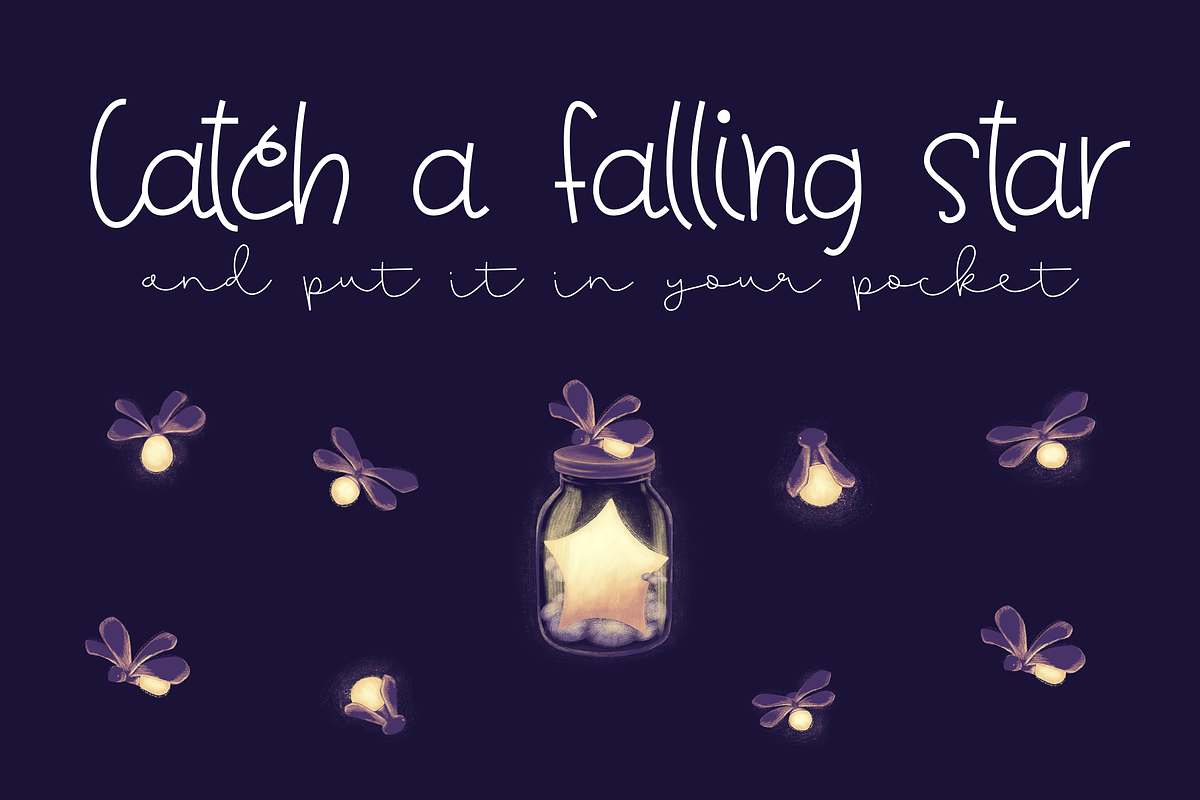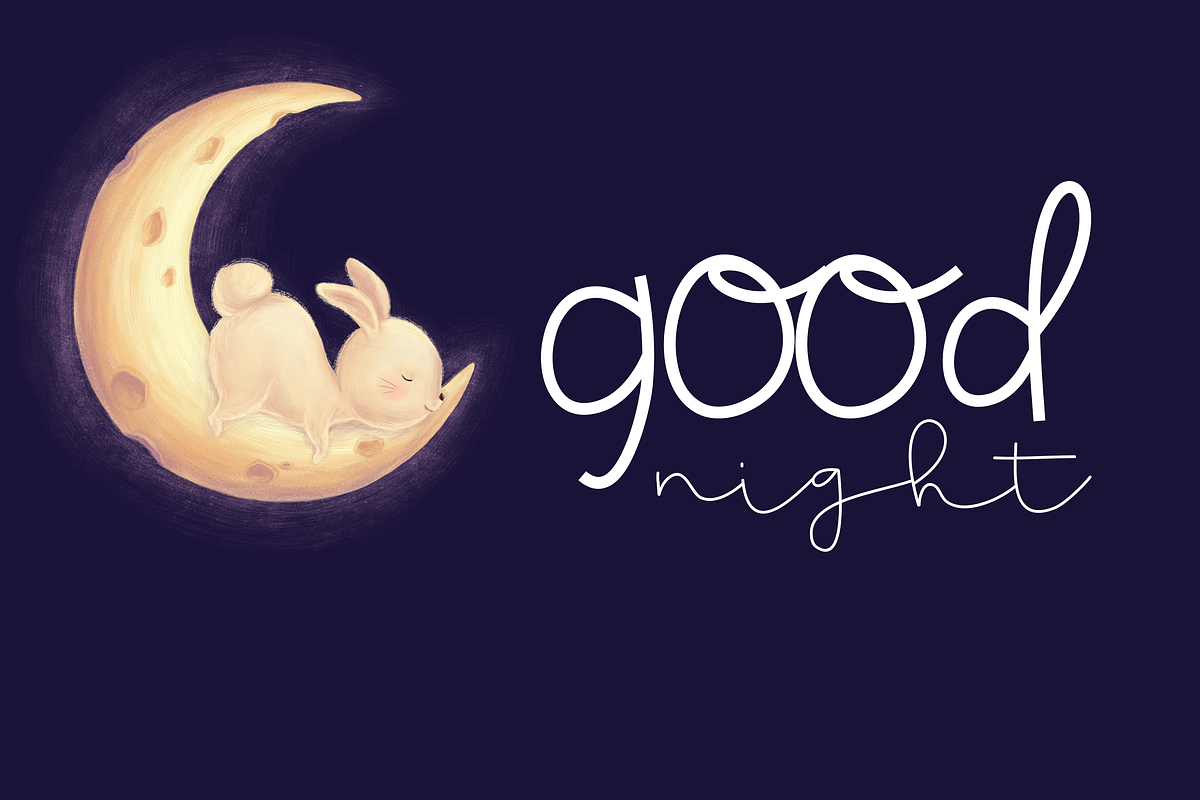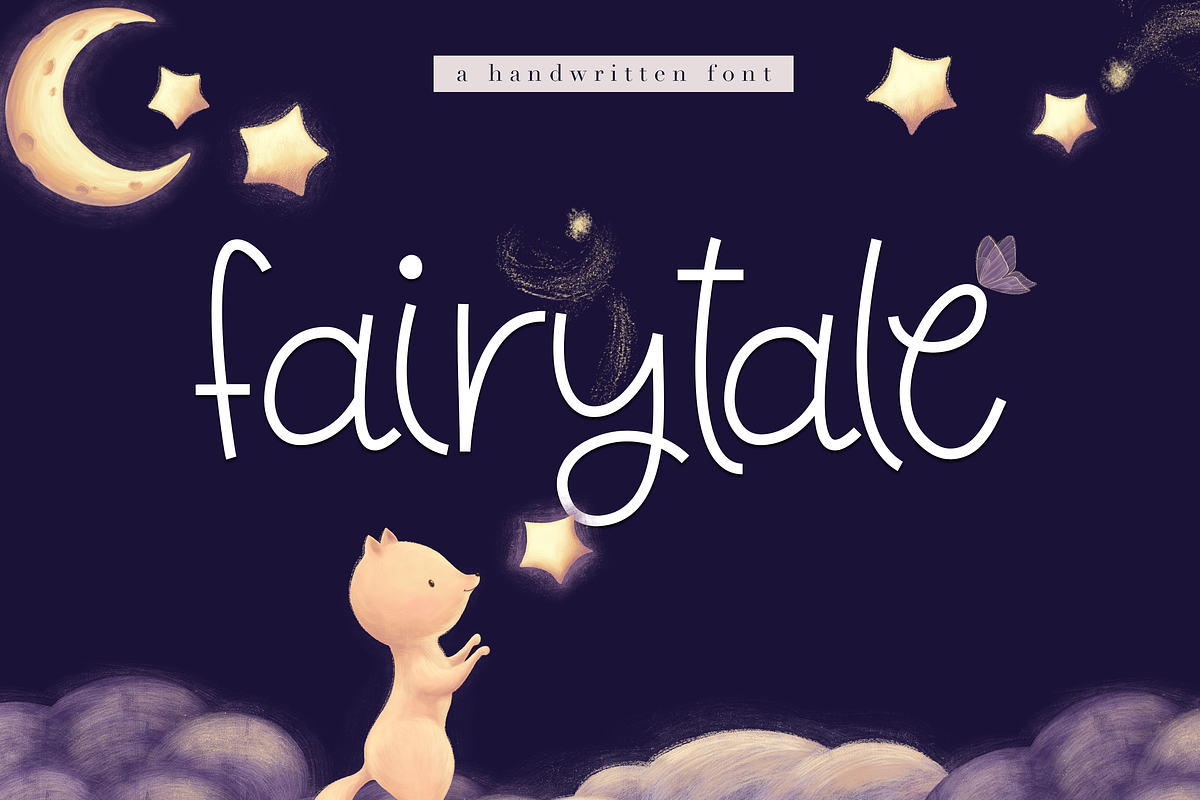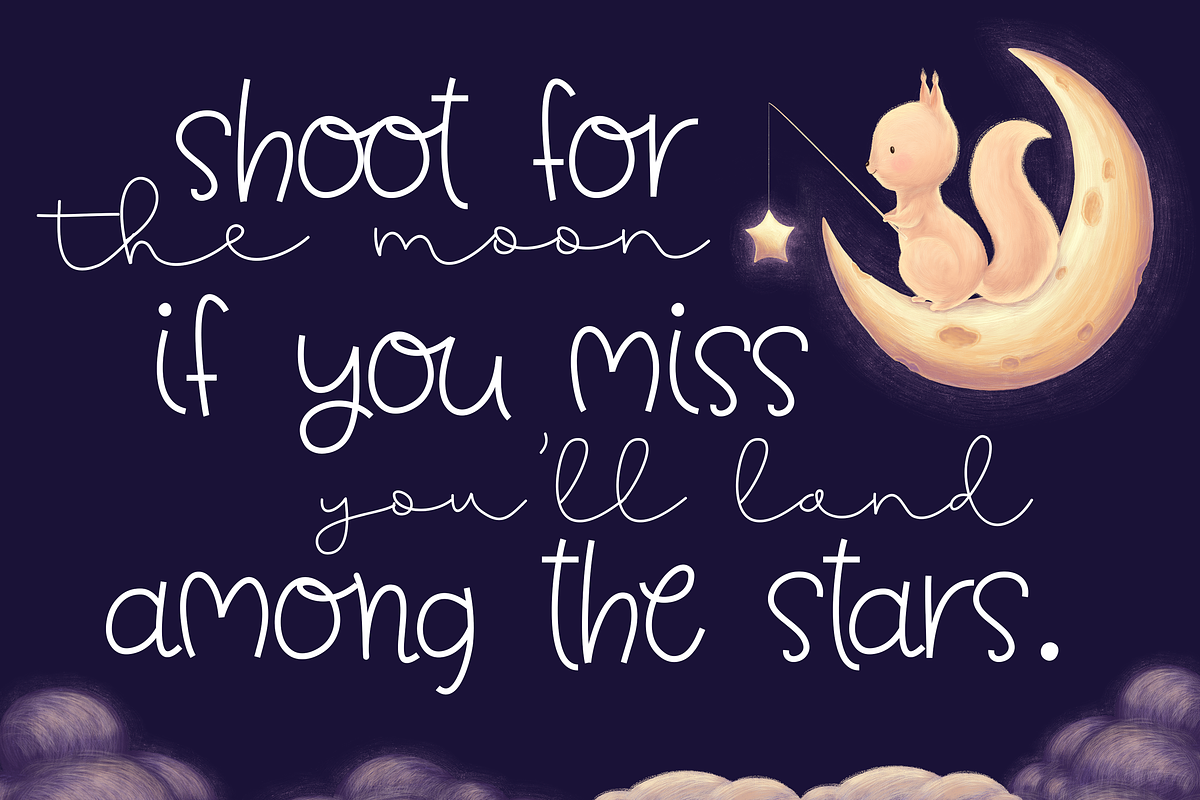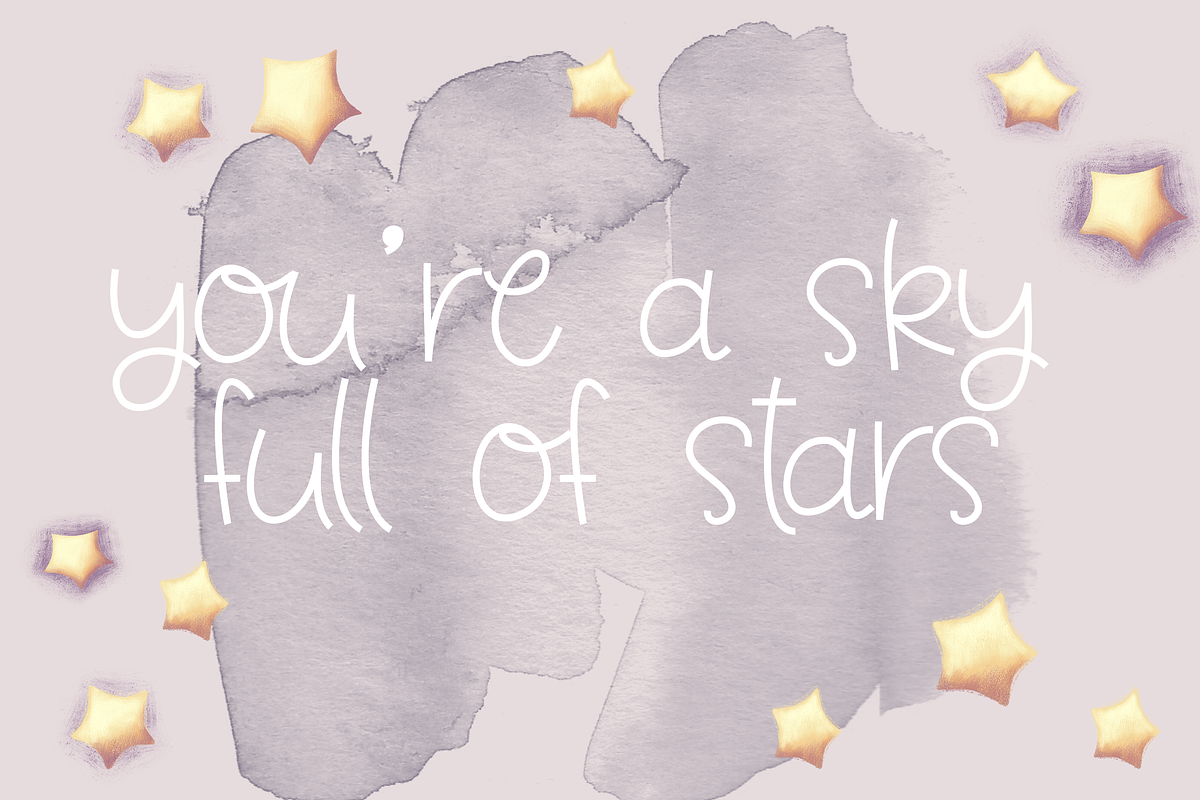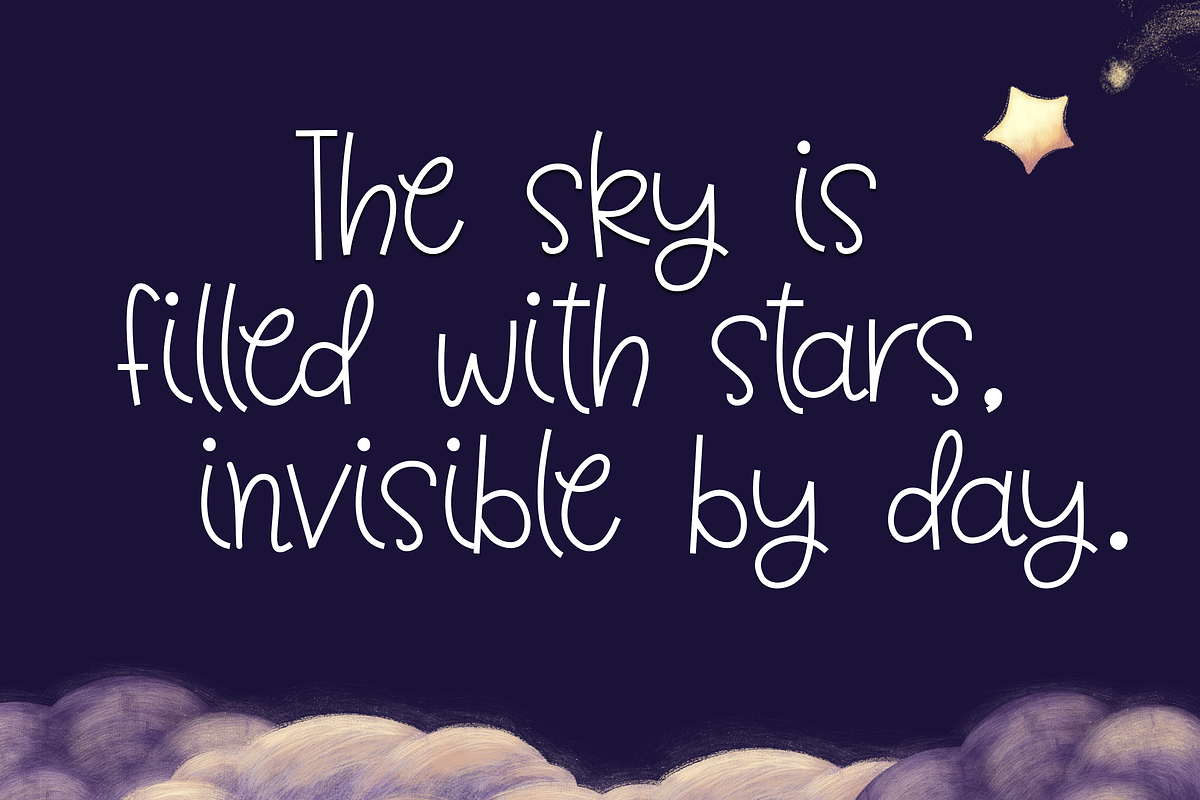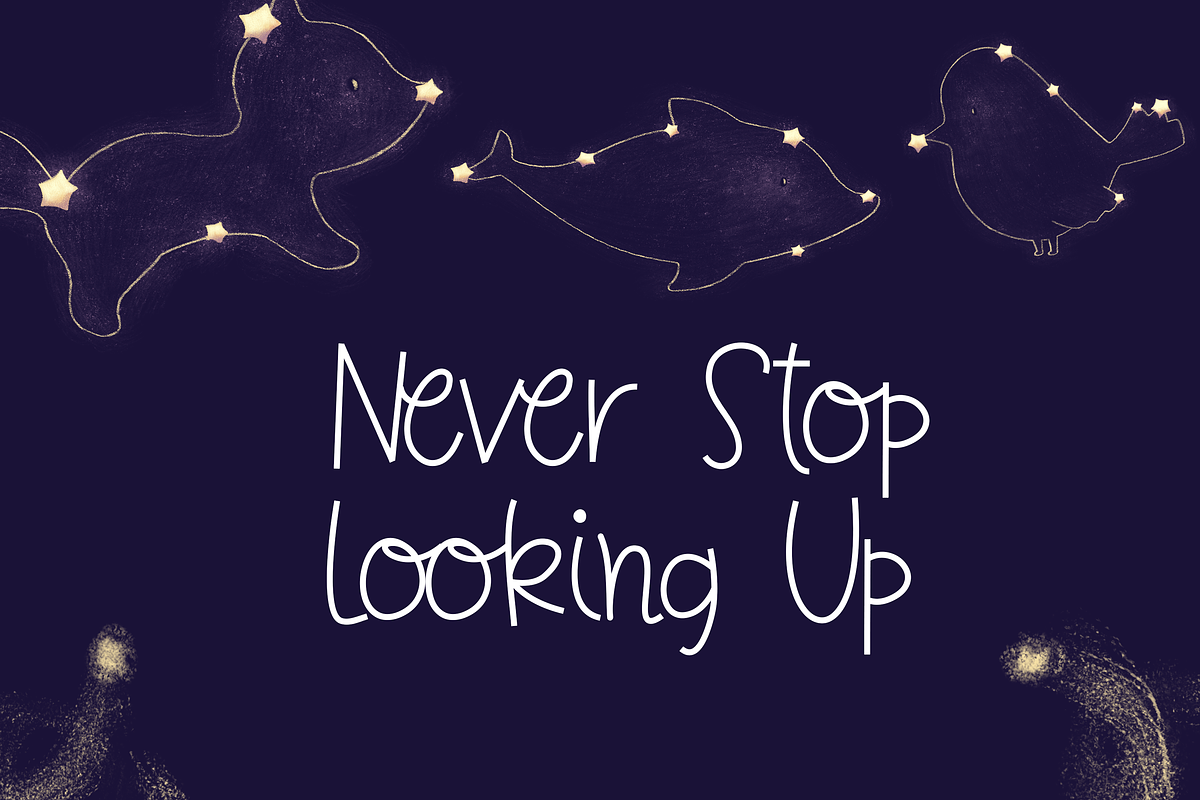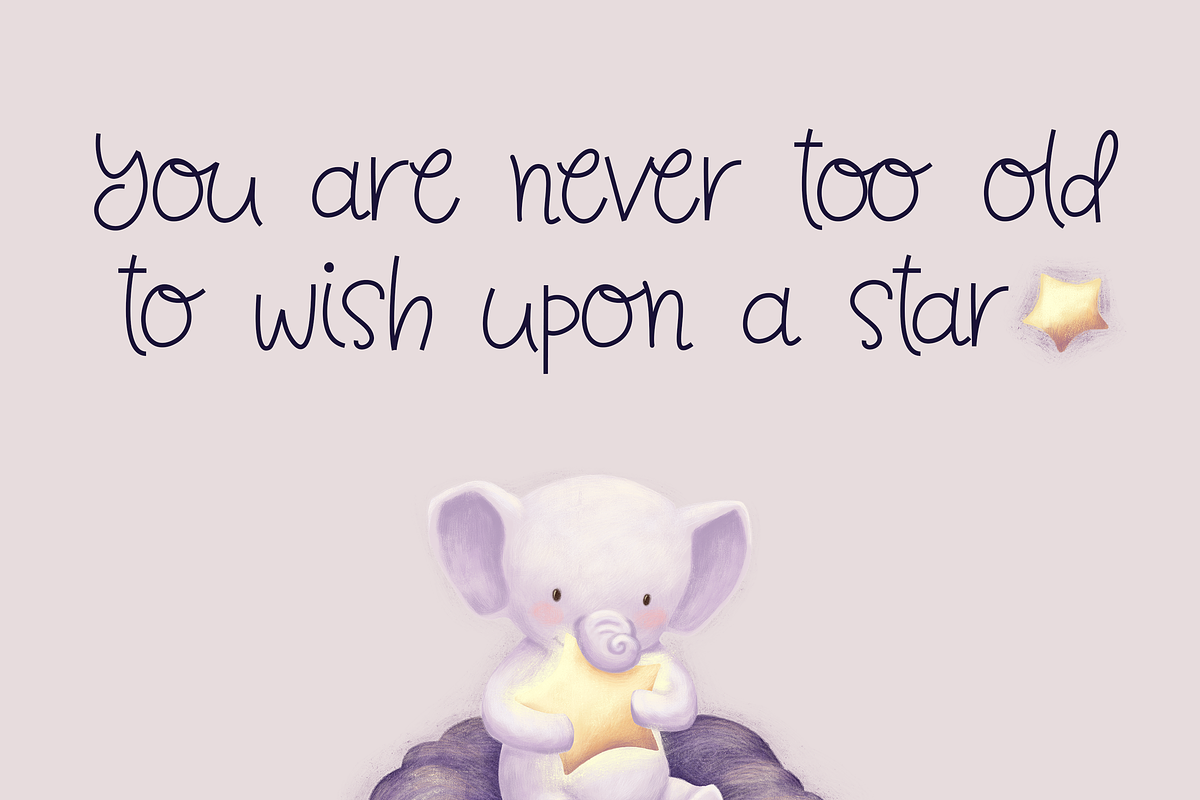
Fairytale - Cute Handwritten Font
Fairytale is a cute handwritten font. This font is perfect for quotes, headings, blogs, logos, invitations and more! It is also great for children's designs!